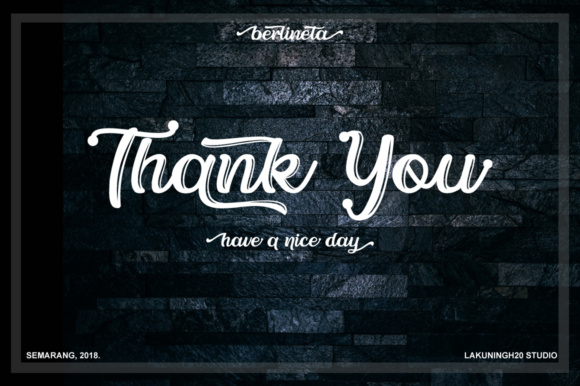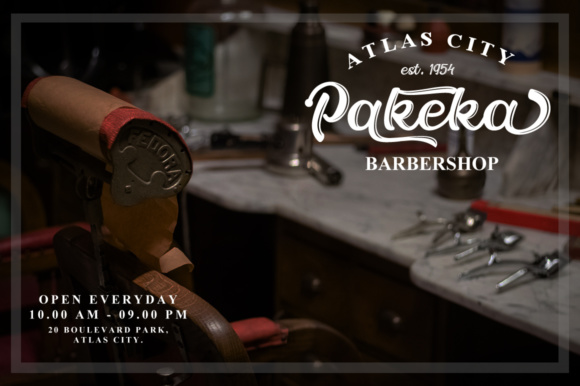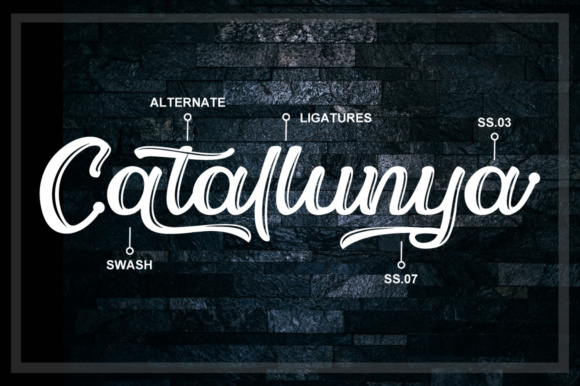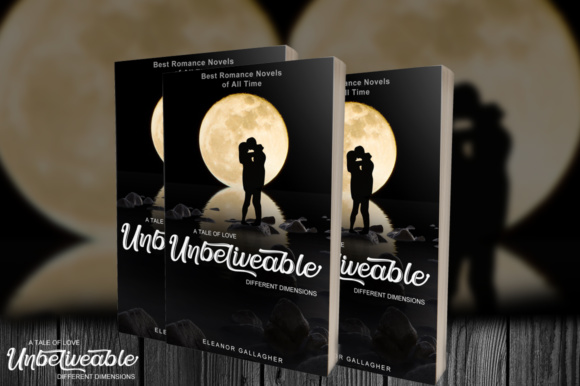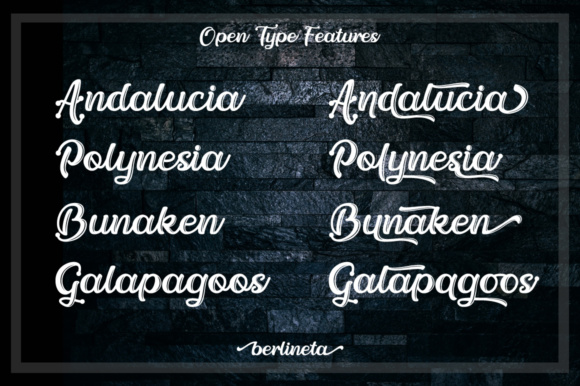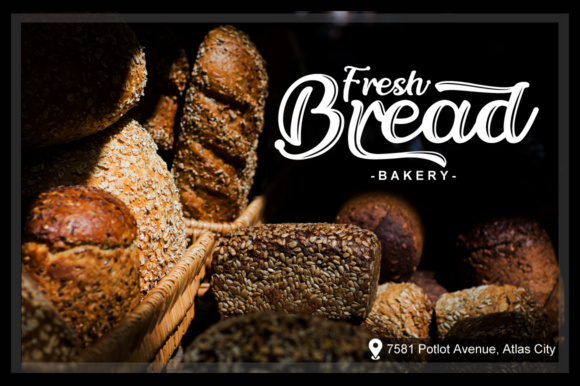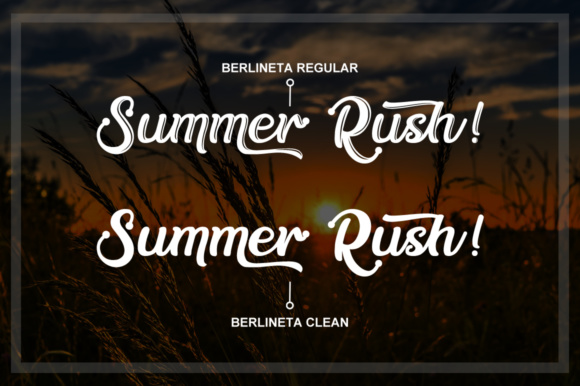
Berlineta Font
About Berlineta Font
The Berlineta is a beautiful handwritten script which comes in two styles: regular and clean. It can be applied to various projects, such as branding materials, quotes, stationery, t-shirt designs, book covers, weddings, posters and much more!